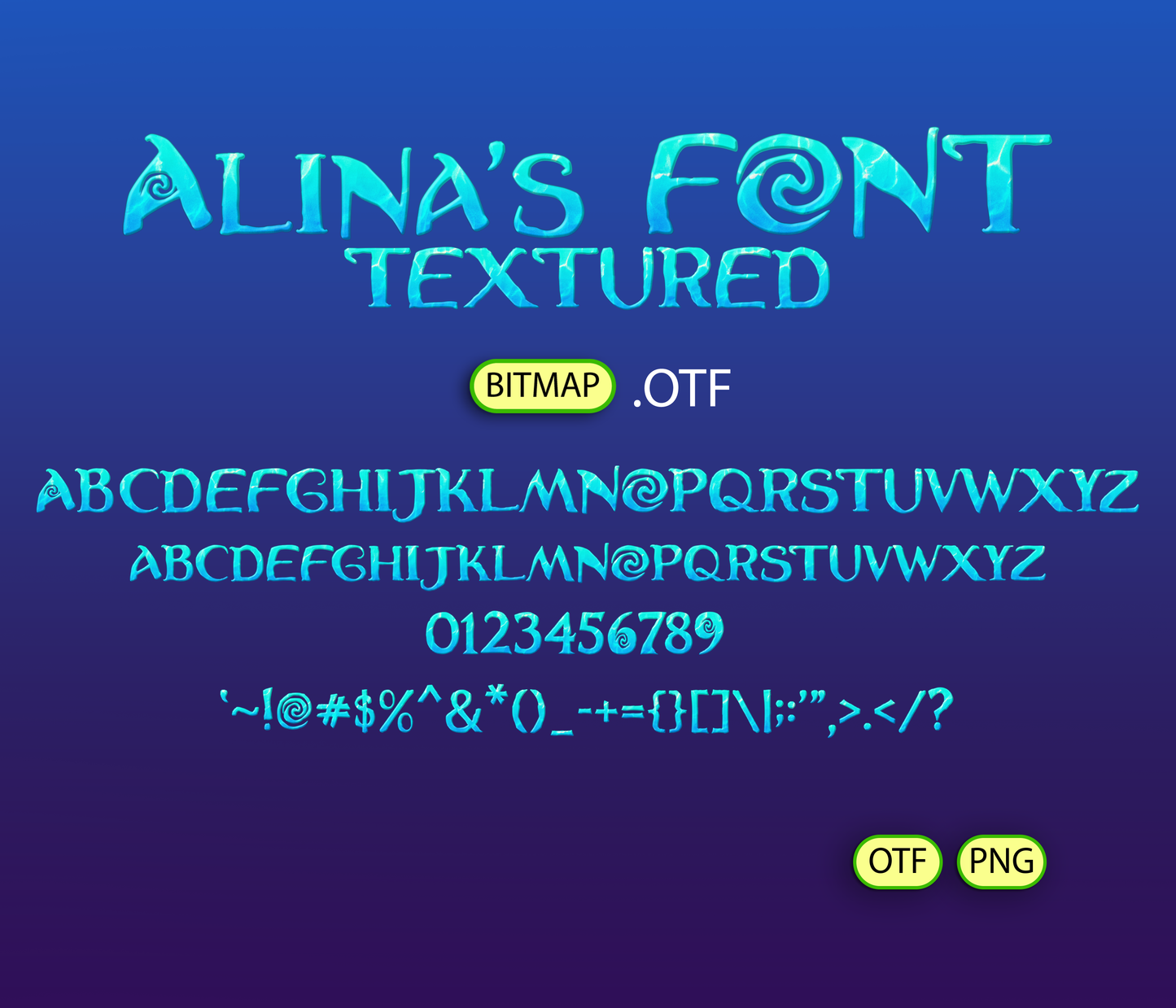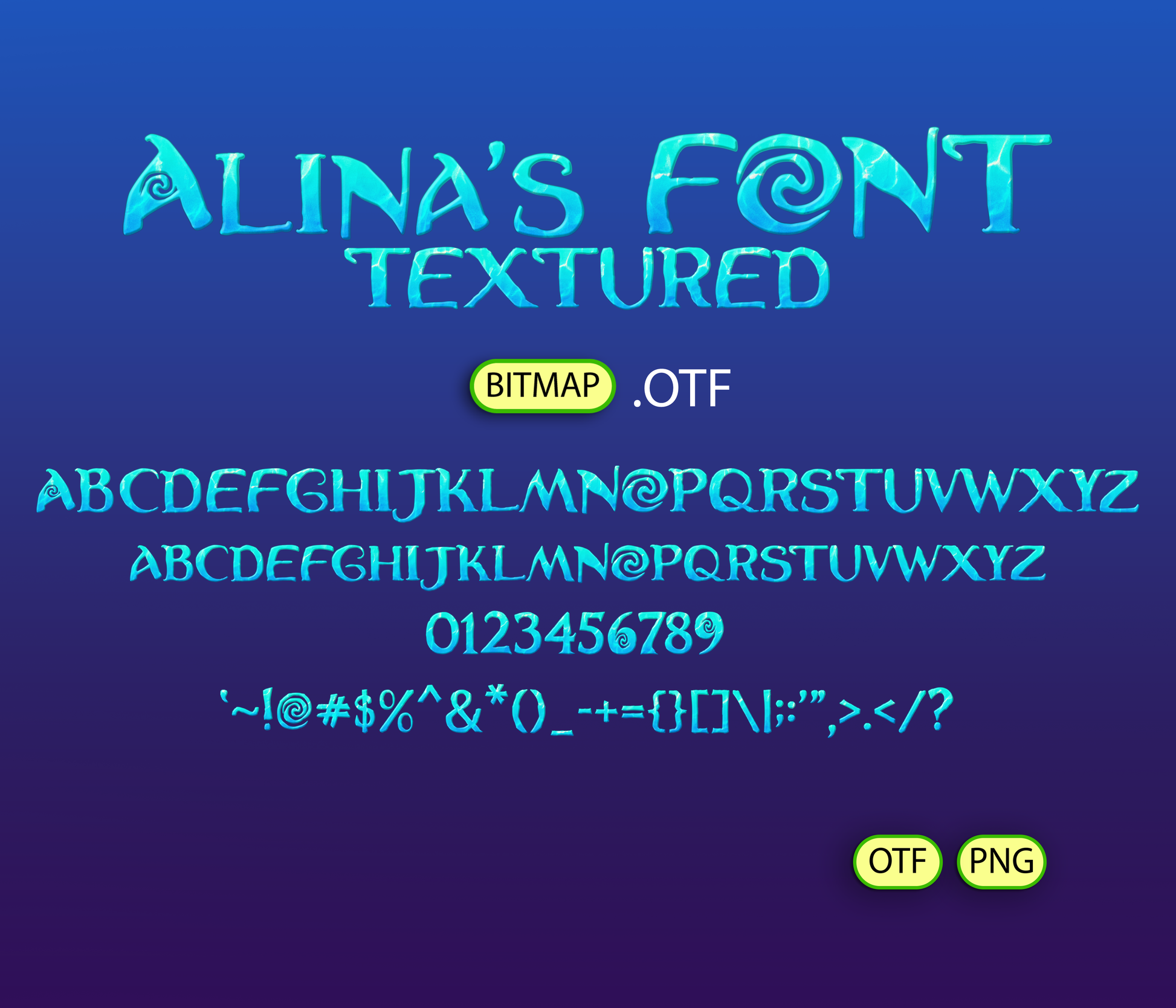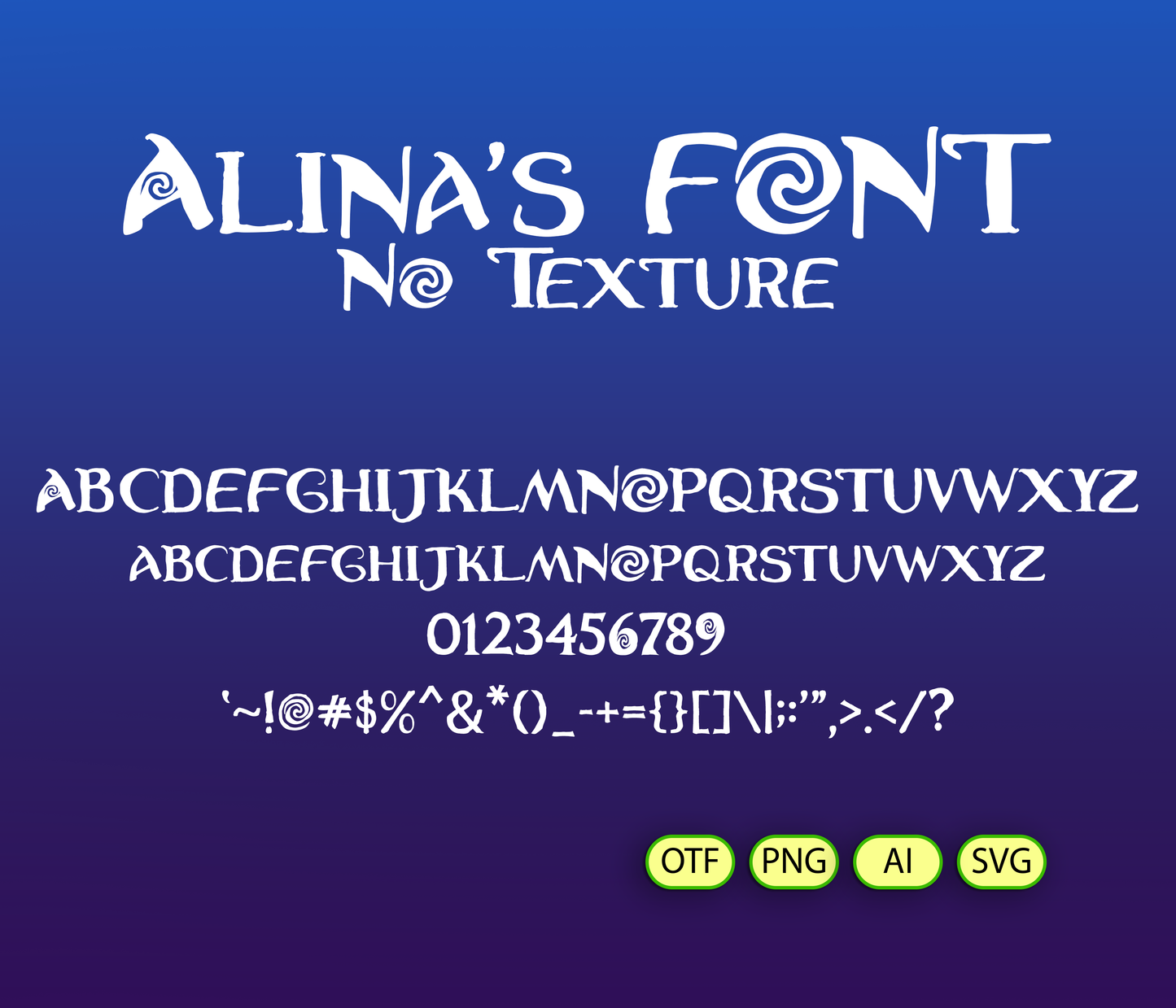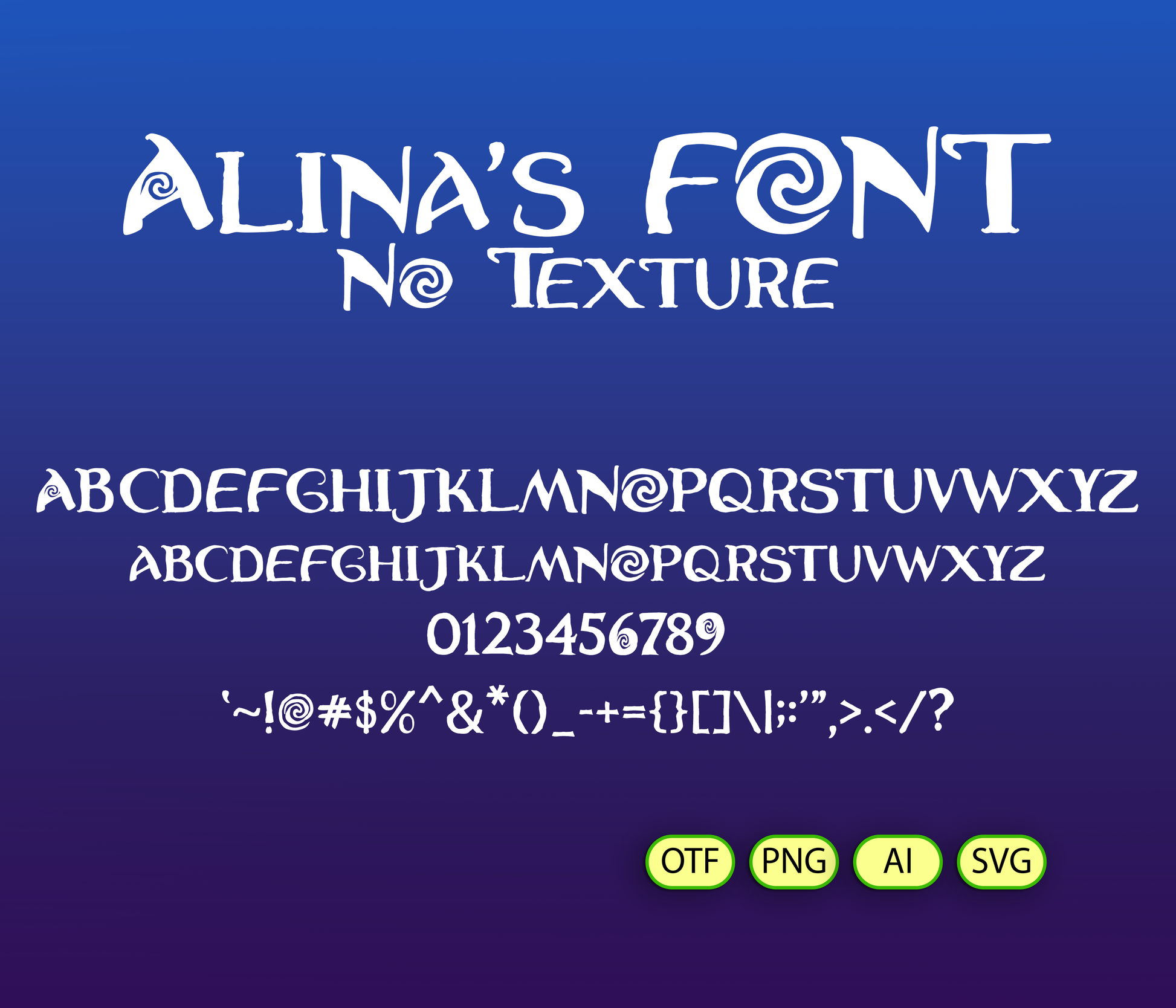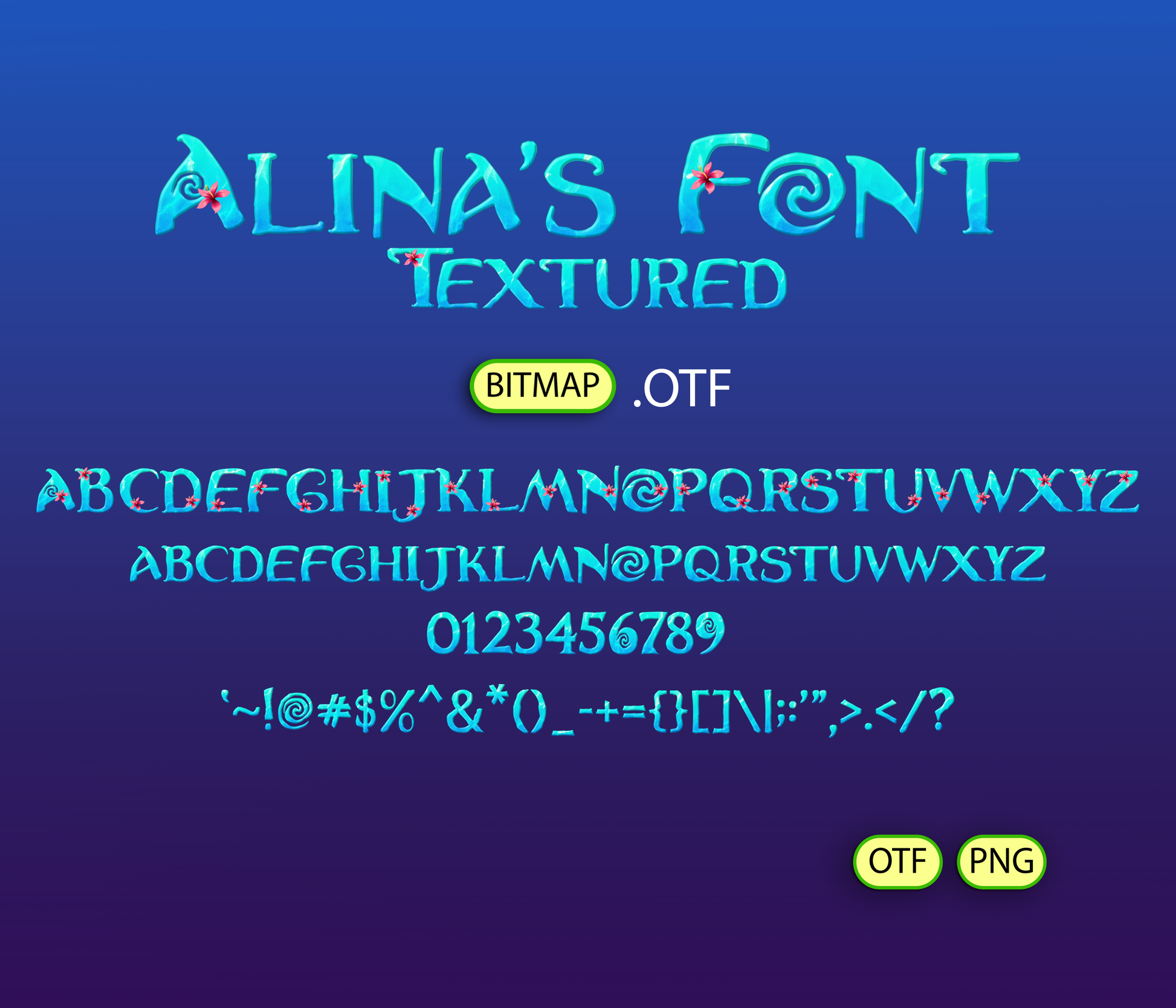
Ocean Voyager Font Textured
Ocean Voyager Font: The Oceanic Wonder of Polynesian Adventure
Navigate the vast and mystical world of Polynesian culture with our specially designed font, inspired by a beloved animated film known for its captivating storytelling, rich island heritage, and stunning oceanic landscapes. This font embodies the essence of an adventurous spirit, deep connection with the ocean, and the cultural heritage of Pacific Islanders. Each character in the font is infused with the fluidity, boldness, and natural beauty of the Pacific Islands, making it perfect for projects that aim to evoke the magic and charm of an oceanic journey.
What Font is Ocean Voyager Font?
Imagine a typeface that encapsulates the fluidity, organic shapes, and cultural richness of the Pacific Islands. Our Ocean Voyager font is designed to mirror aesthetic elements seen in island-inspired stories, with a focus on wave-like curves, tribal patterns, and a sense of adventure. It includes an extensive character set, featuring alphabets, numbers, and special symbols, providing a comprehensive tool for creating designs that resonate with the themes of exploration, nature, and Polynesian culture.
What Can You Do With Ocean Voyager Font?
The Ocean Voyager font is versatile and ideal for a variety of creative and cultural applications:
- Themed Event Invitations: Create beautiful invitations for island-themed parties or cultural events.
- Merchandise Design: Perfect for designing t-shirts, posters, and other merchandise that celebrate the spirit of Polynesian culture.
- Digital Content and Social Media: Use the font to add a touch of oceanic charm to websites, blogs, and social media posts.
- Educational Materials: Incorporate the font into teaching resources about Polynesian culture, oceanography, or environmental conservation.
- Greeting Cards and Stationery: Design personalized stationery or greeting cards with an island-inspired theme.
- Promotional Materials: Use in marketing and advertising materials for tourism, cultural events, or environmental causes.
- Interior Decor: Create wall art, decals, or signage for spaces inspired by oceanic and island themes.
- Event Signage: Develop eye-catching signs and banners for themed events, cultural fairs, or conventions.
- Creative Art Projects: Ideal for crafting, scrapbooking, and artistic projects inspired by the beauty and culture of the Pacific Islands.
- Book and Magazine Design: Use in publications focusing on travel, culture, or children's storytelling.
- Textured and FREE Non-Textured Variants: Each font is available in both a style inspired by natural island textures and a clean, non-textured version for diverse design needs.
- Comprehensive Character Set: Offers a wide range of characters for complete design versatility.
The Ocean Voyager font is more than just a typeface; it's an invitation to an enchanting world of Polynesian adventure.